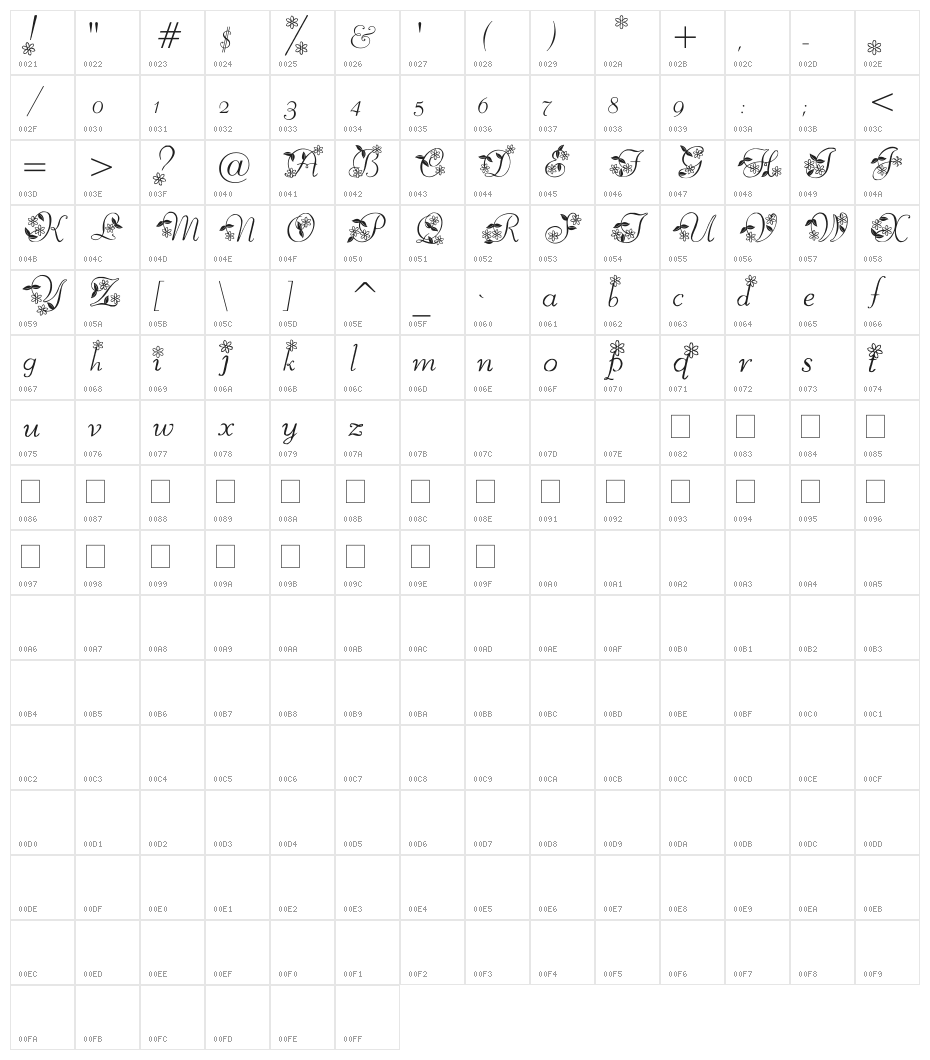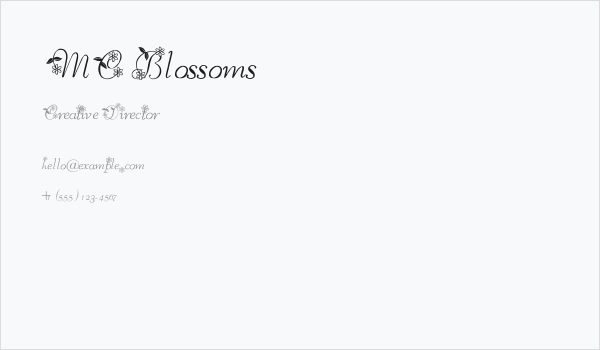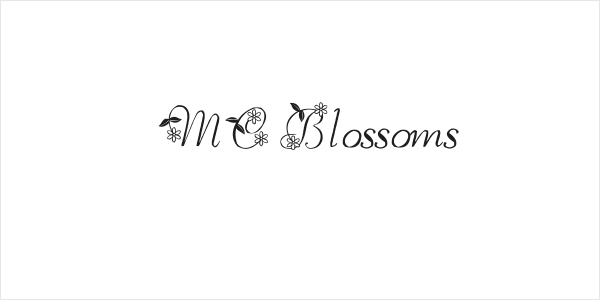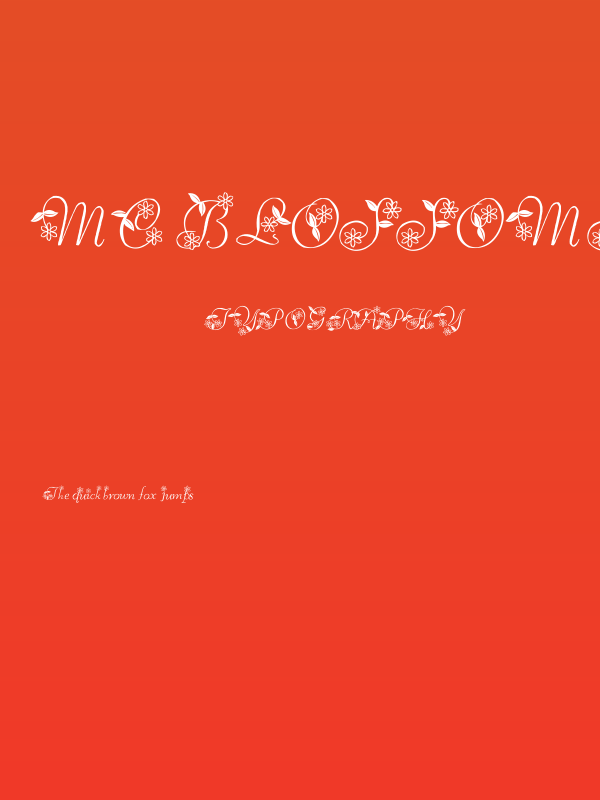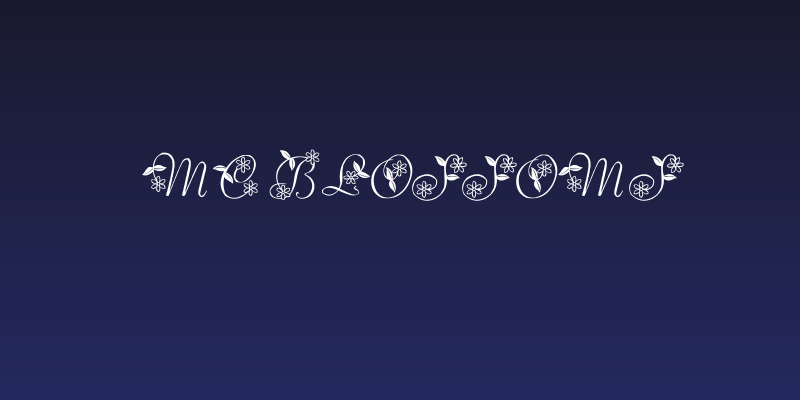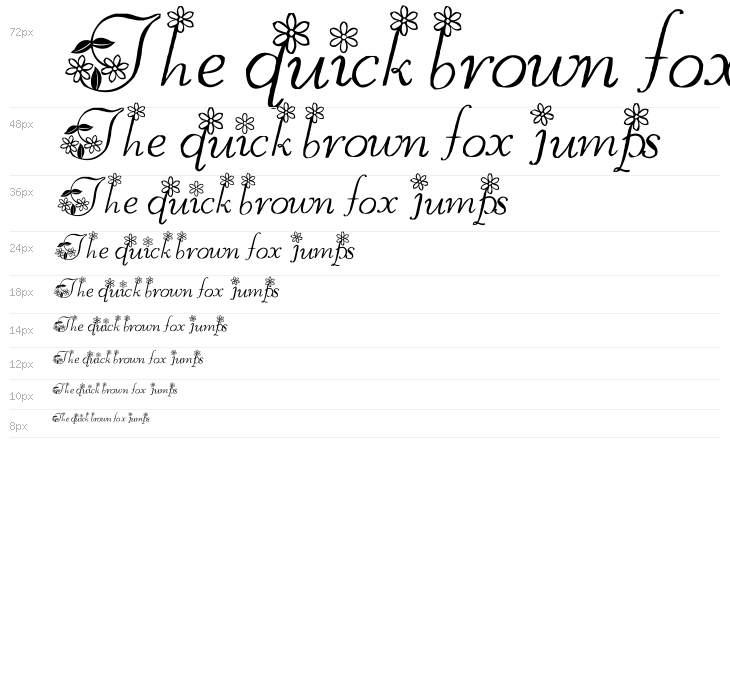
MC Blossoms Font
MC Blossoms Description
This decorative font features a playful and whimsical style, incorporating floral elements into the design of each character. The uppercase letters are adorned with intricate flower motifs, creating a unique and artistic appearance. The lowercase letters maintain a cursive, flowing style, with some characters embellished with floral accents. The numerals and special characters also follow this decorative theme, making the font suitable for creative and artistic projects. The overall design is both elegant and fun, offering a distinct personality that stands out.
| Use Case | Logos, Invitations, Artistic Projects |
| Proposed Projects | Ideal for wedding invitations, greeting cards, artistic posters, and branding materials that require a touch of elegance and creativity. |